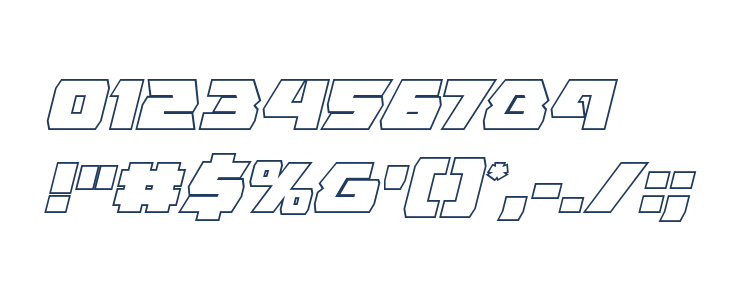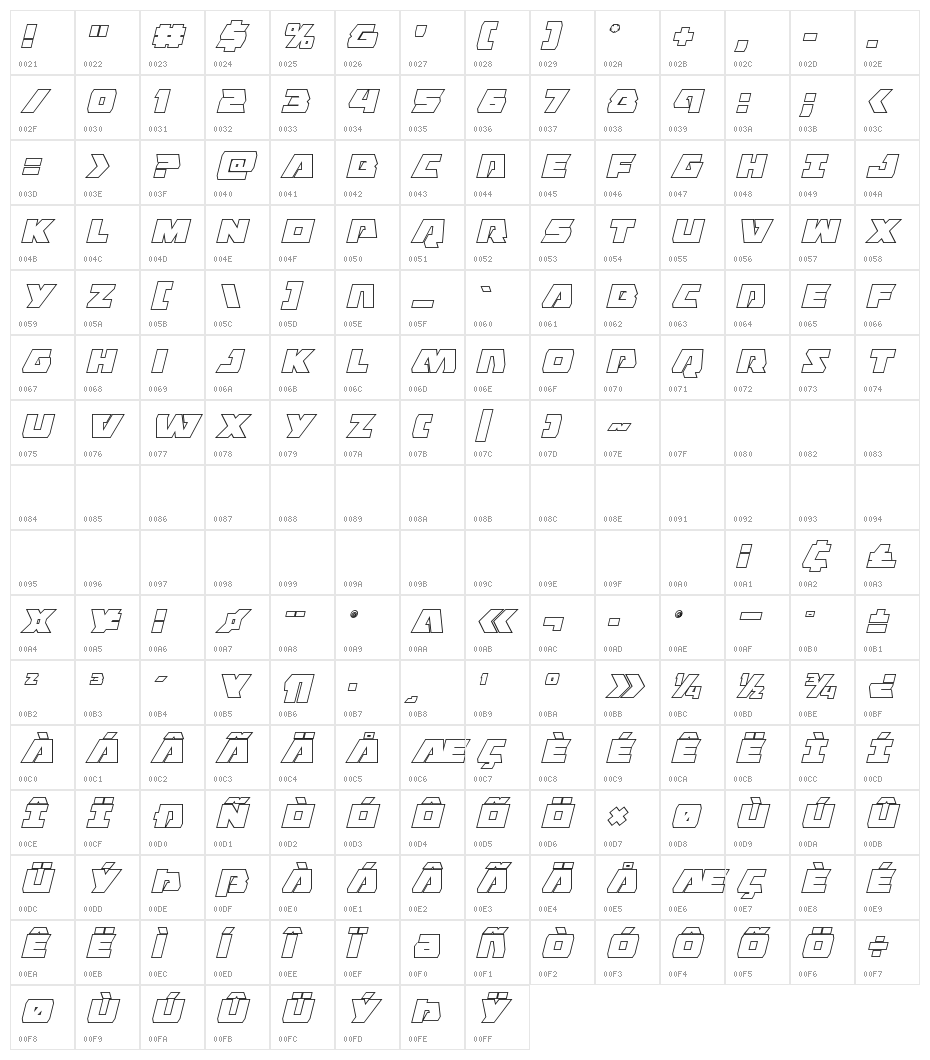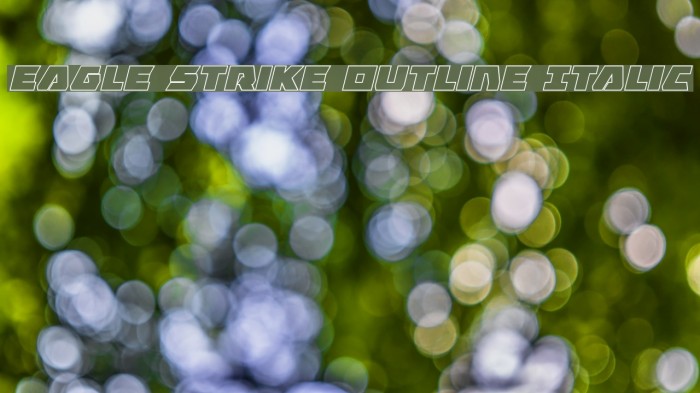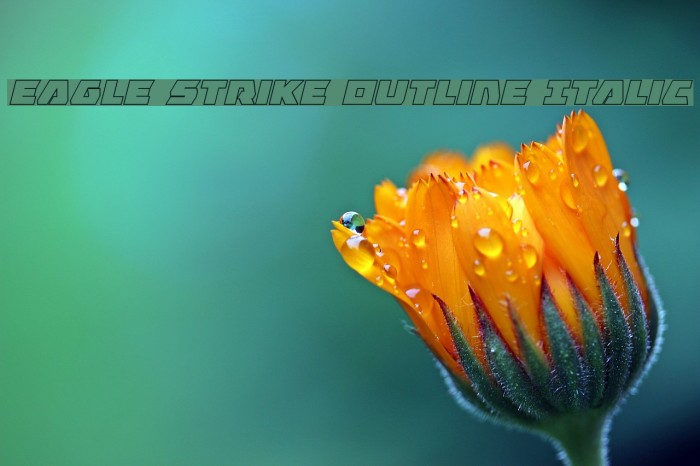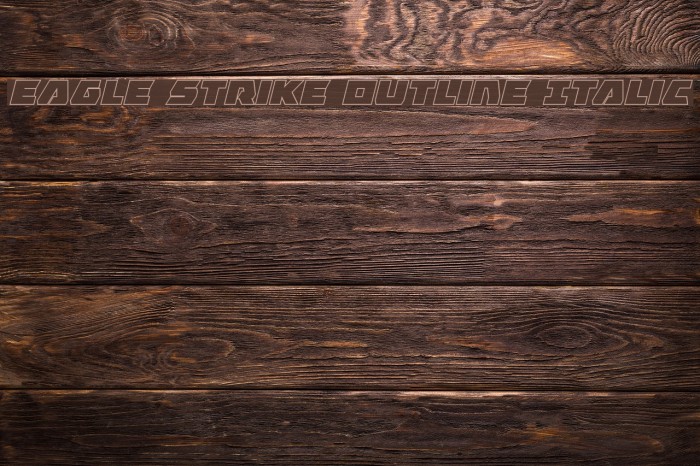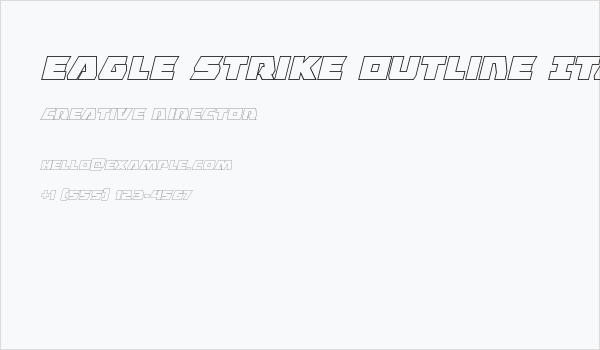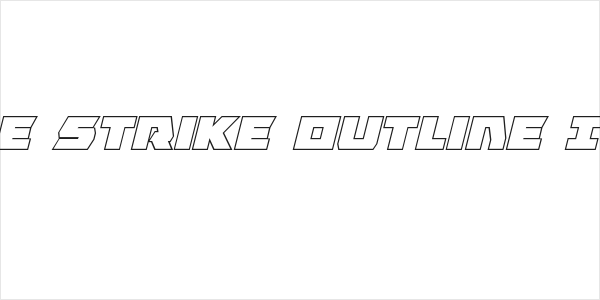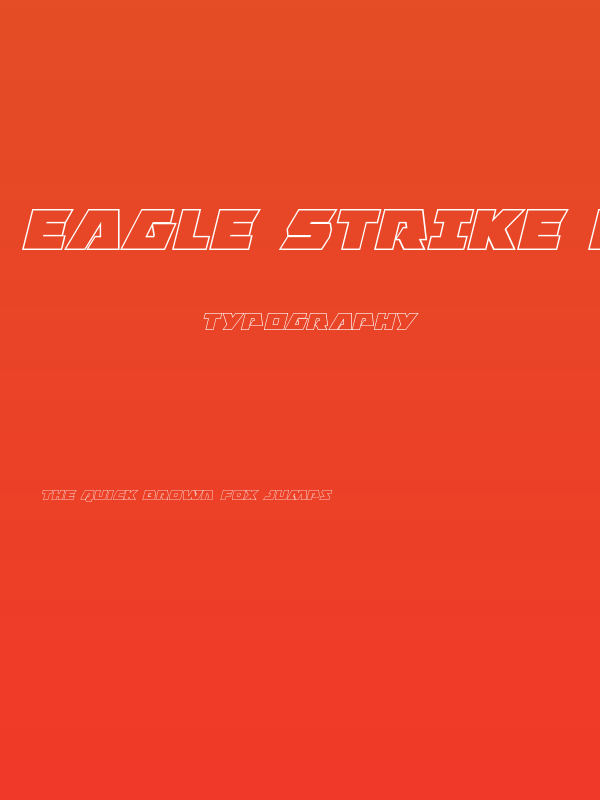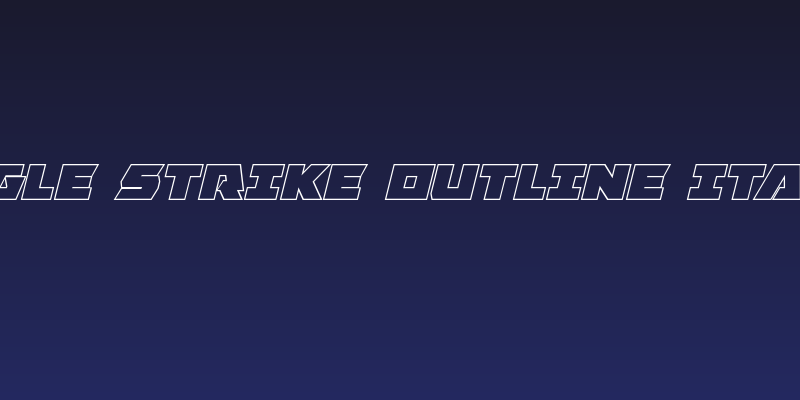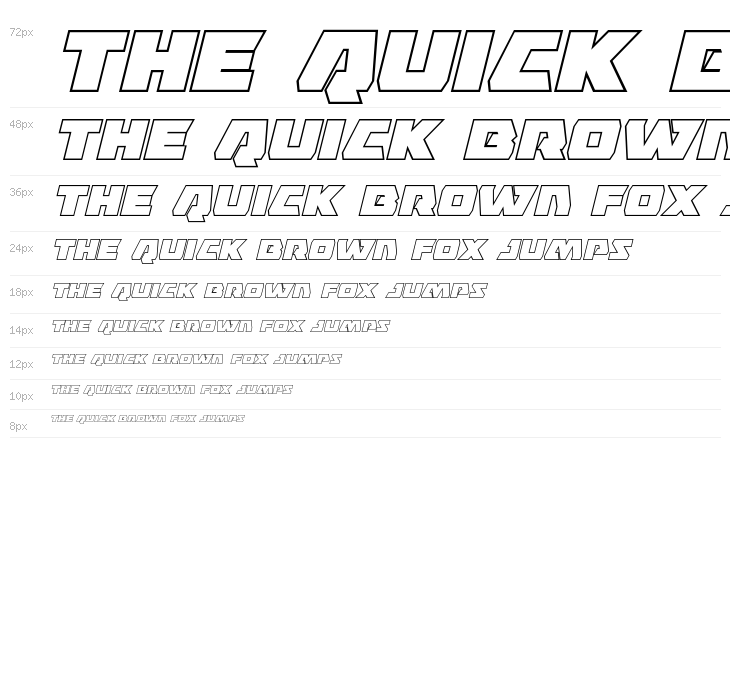
Eagle Strike Outline Italic Font
Eagle Strike Outline Italic Description
This font features a bold, angular design with an outline style that gives it a striking and dynamic appearance. The italic slant adds a sense of motion and energy, making it ideal for attention-grabbing headlines or titles. Each character is crafted with sharp edges and geometric precision, creating a futuristic and modern aesthetic. The uppercase and lowercase letters maintain a consistent style, while the numbers and special characters complement the overall design. This font is perfect for projects that require a bold statement and a contemporary look.
| Proposed Projects | Perfect for sports branding, video game covers, futuristic posters, and dynamic advertising campaigns. |